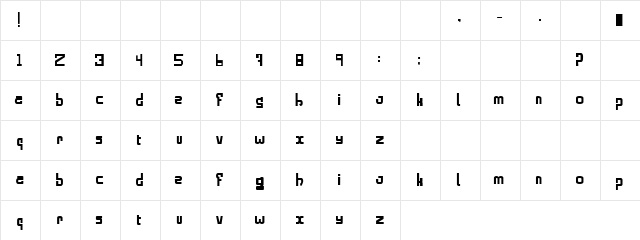
Resolution Regular
Design Context for Resolution Typeface
Resolution is a composed and adaptable typeface that performs quietly and consistently across a wide range of design contexts.